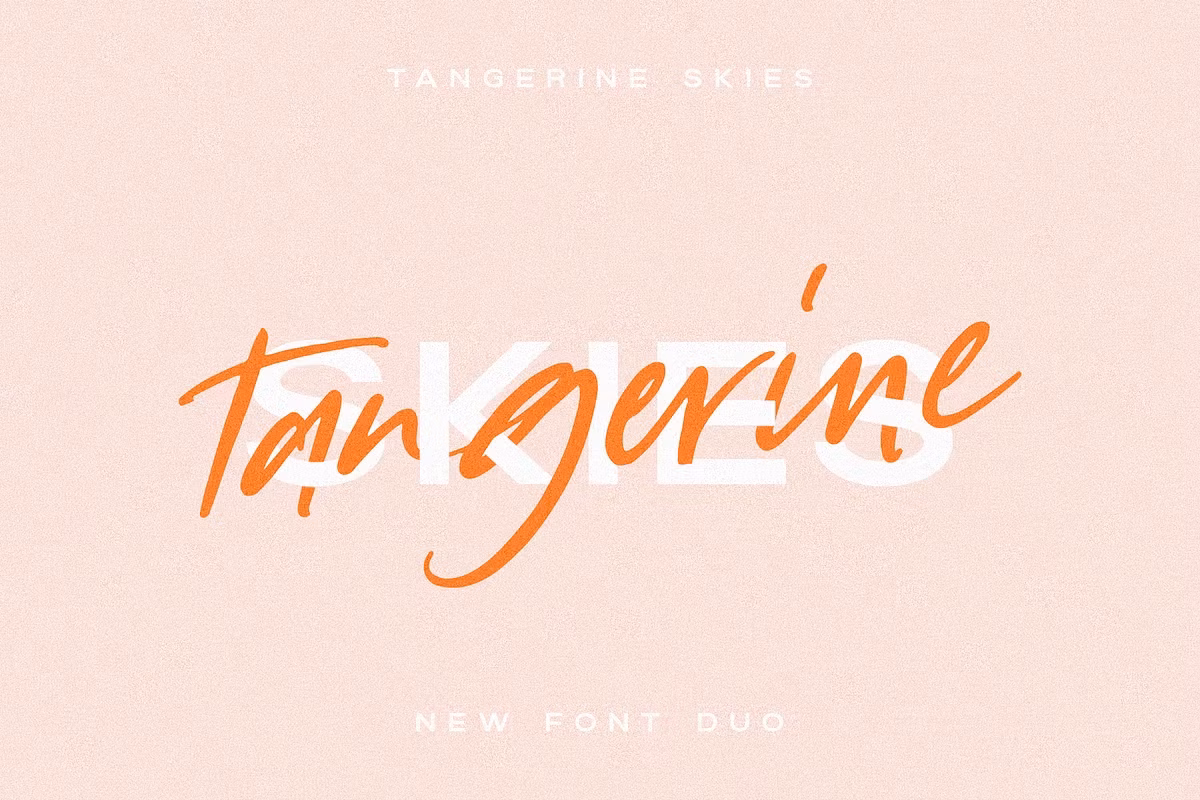
The Tangerine Skies Font Duo Free Download is a stylish and versatile font pair designed to bring elegance and flair to your designs. Combining a graceful, flowing script with a clean, modern sans-serif, this duo is perfect for a wide variety of creative projects, including branding, invitations, logos, social media graphics, and more.
The Tangerine Skies Script Font adds a personal, handwritten touch, while the Tangerine Skies Sans font balances it with a contemporary and minimalistic vibe, creating a harmonious contrast that works well in both formal and casual designs.
With uppercase and lowercase letters, numbers, punctuation, and multilingual support, this font duo offers flexibility for a wide range of design needs.